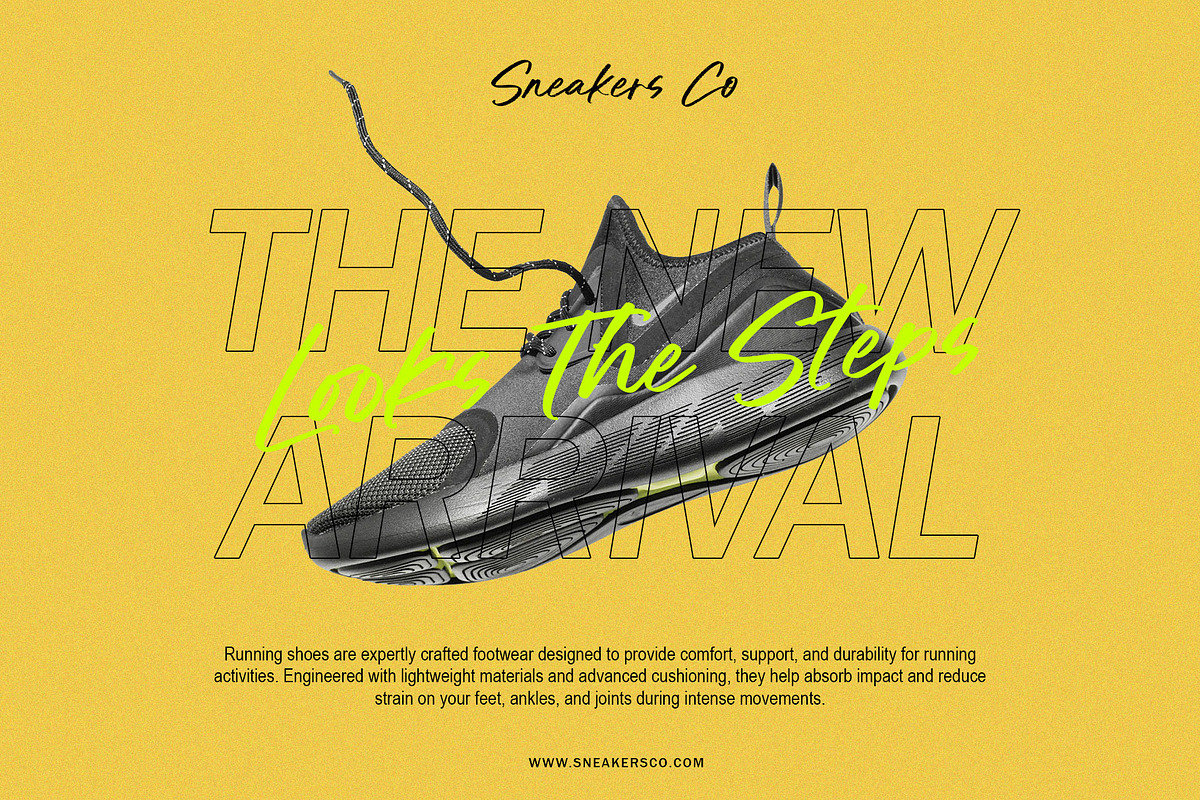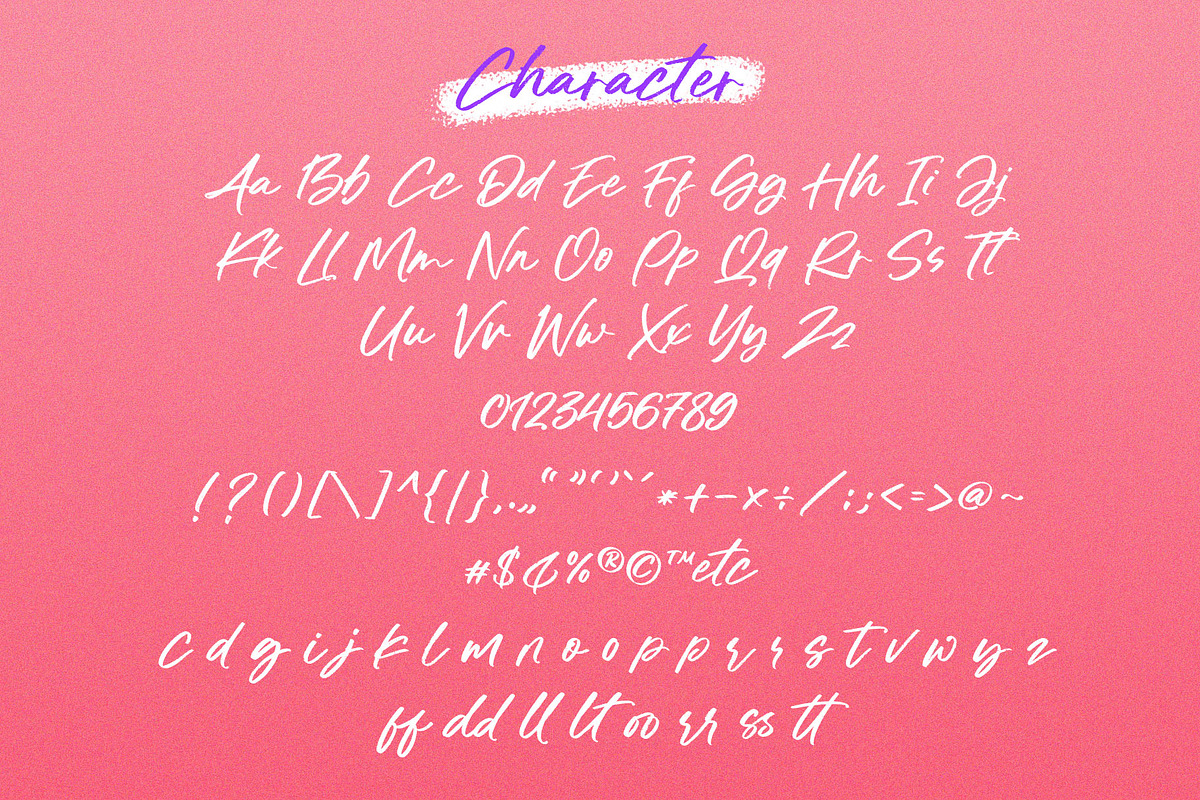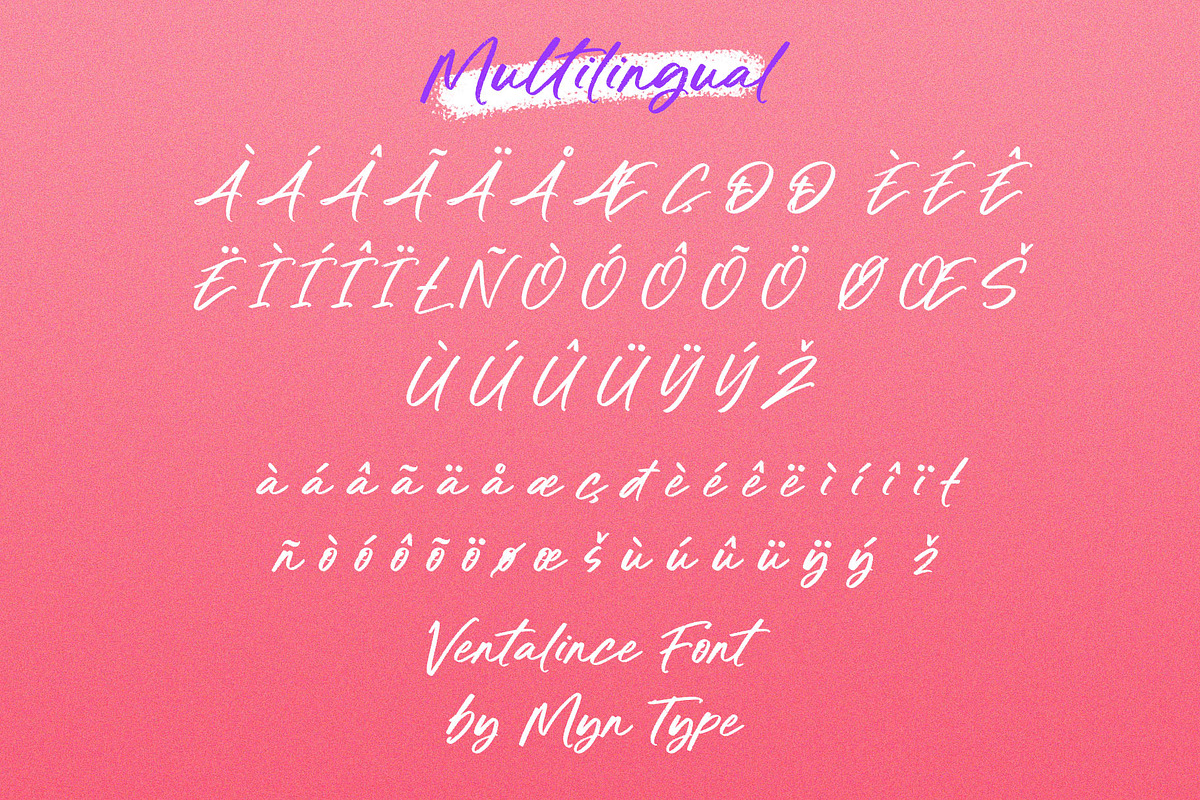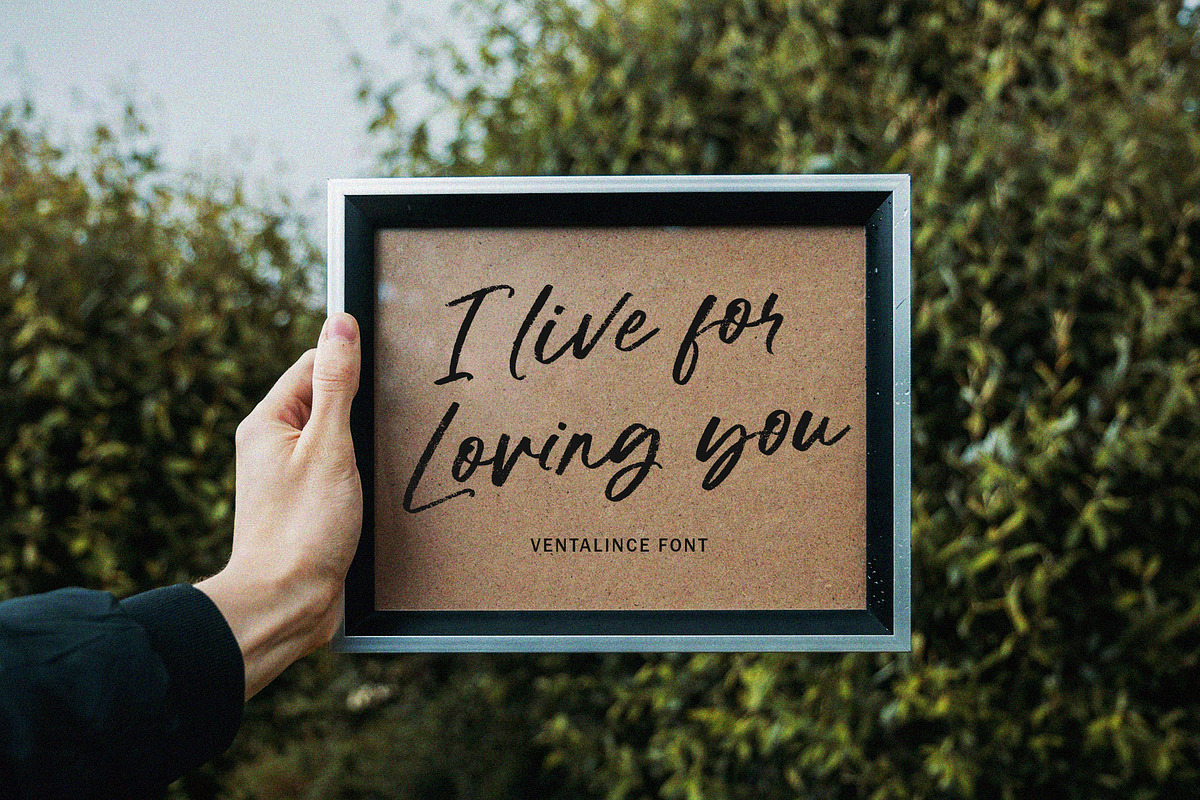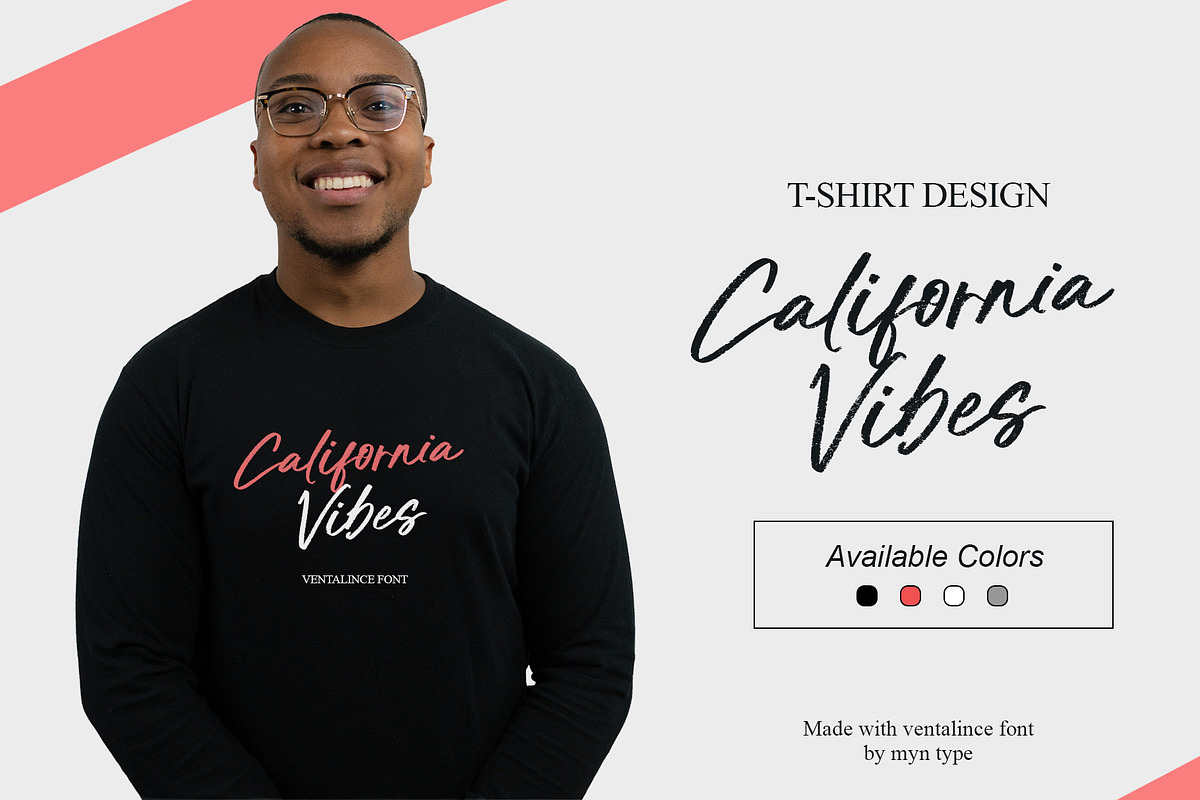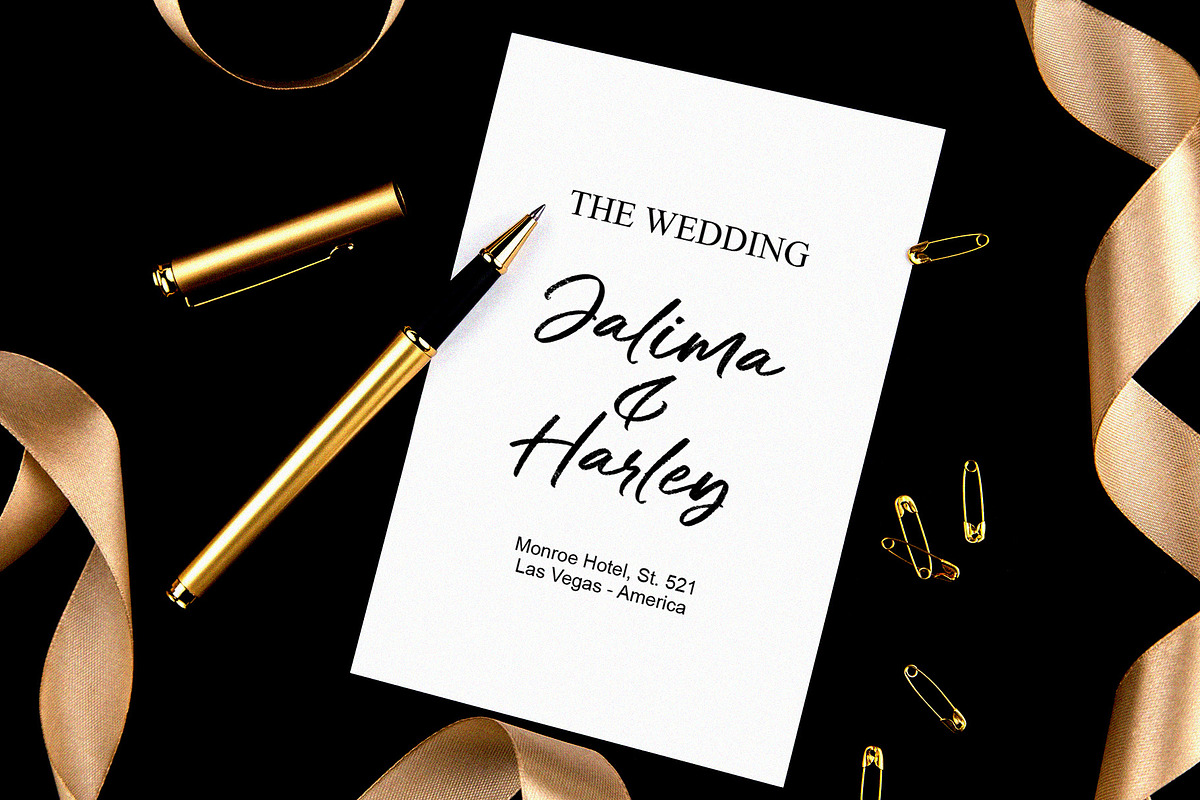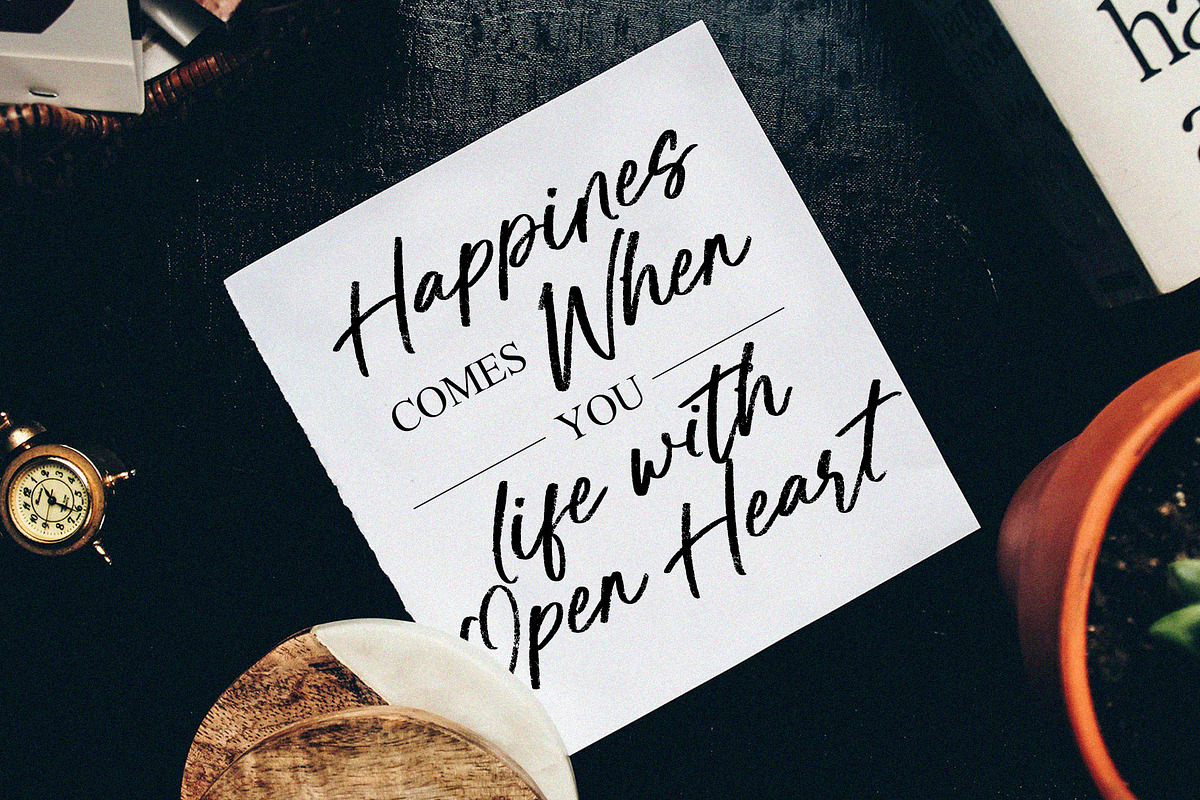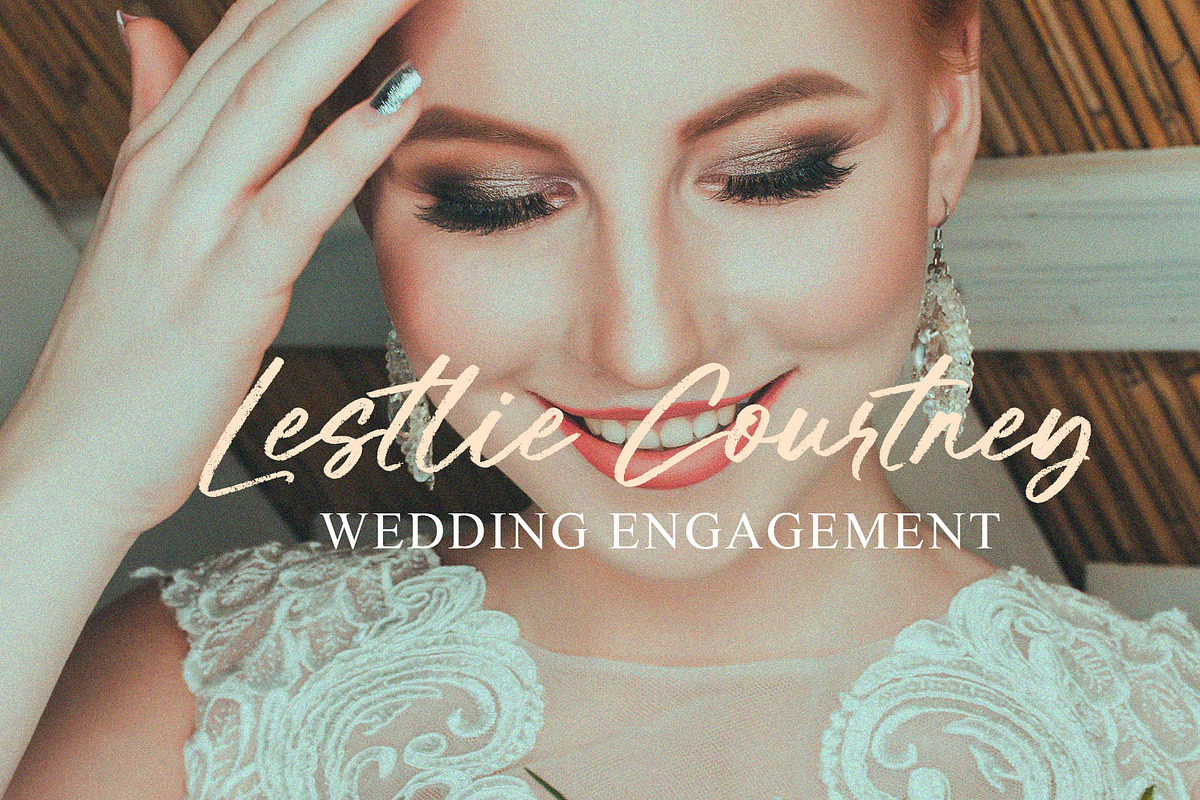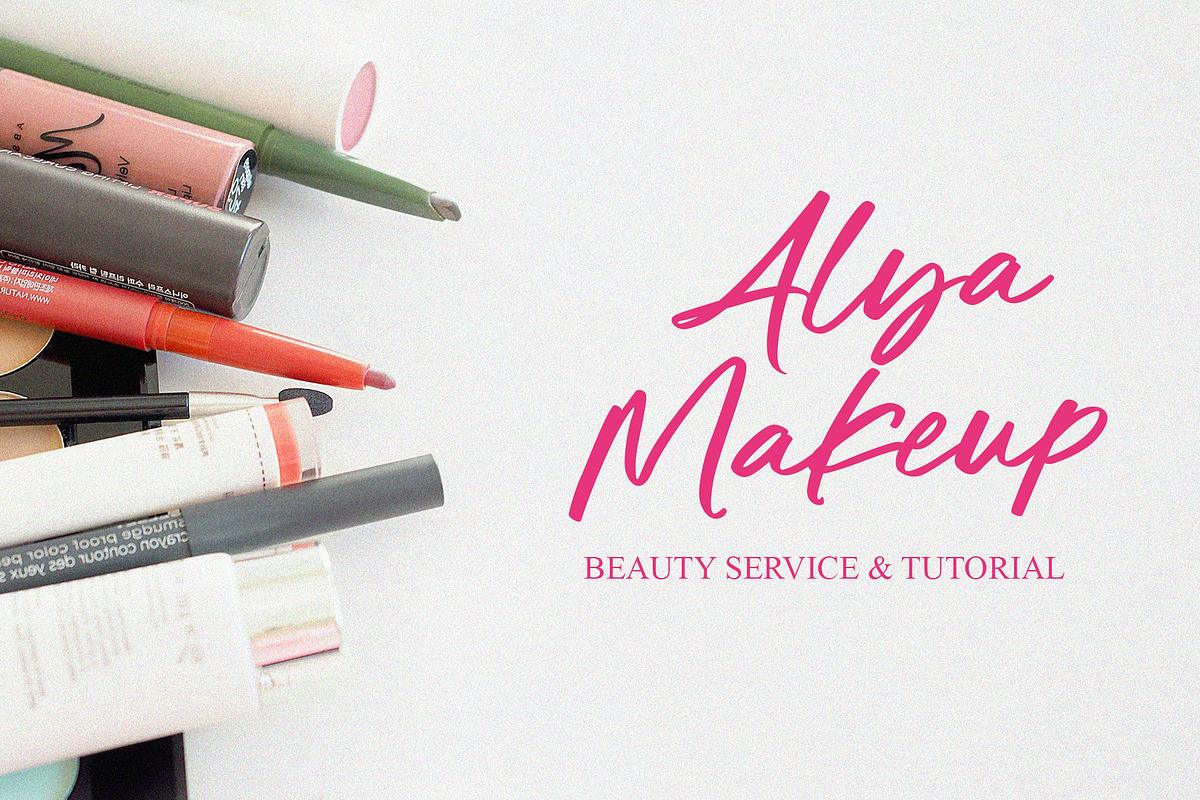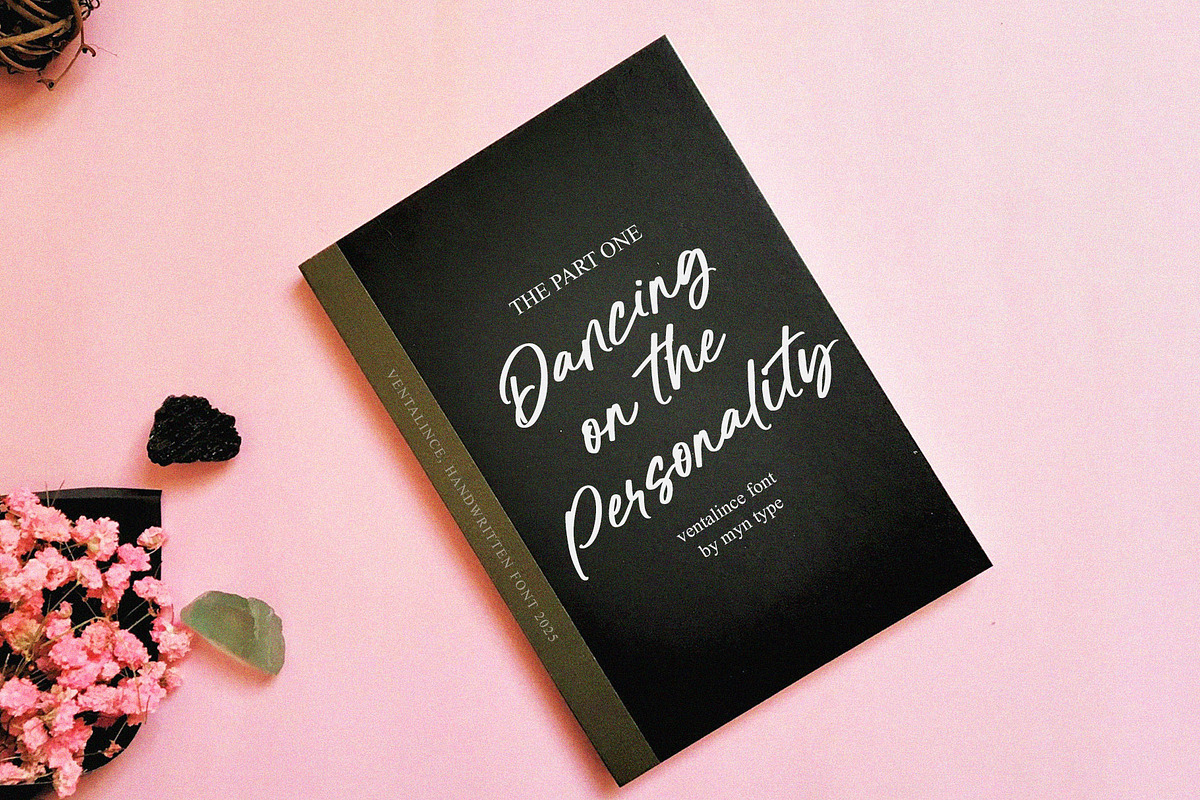
Ventalince - Handwritten Brush Font
Ventalince is a typeface natural handwriting texture brush font that replicates the look of authentic, hand-painted brush strokes with visible texture, creating a raw and organic feel.
This font include with clean style that perfect for designs that need a personal, artistic touch while maintaining readability and versatility.
Perfect for Logos & Branding, Invitations & Greeting Cards, Social Media Graphics, Packaging Design, T-shirts & Merchandise, Music & Band Posters, Streetwear & Apparel Design, Grunge or Urban-Themed Designs, Book Covers & Movie Titles.